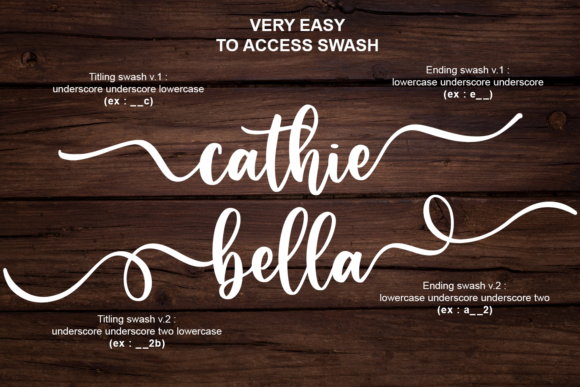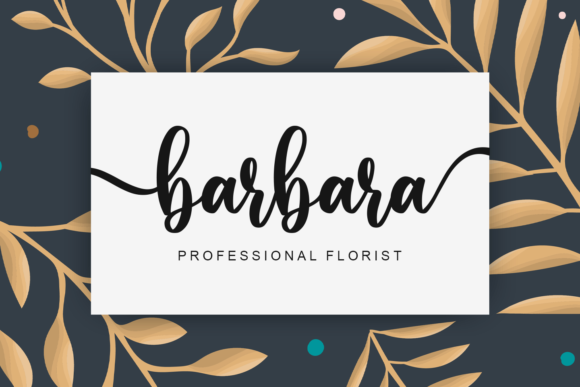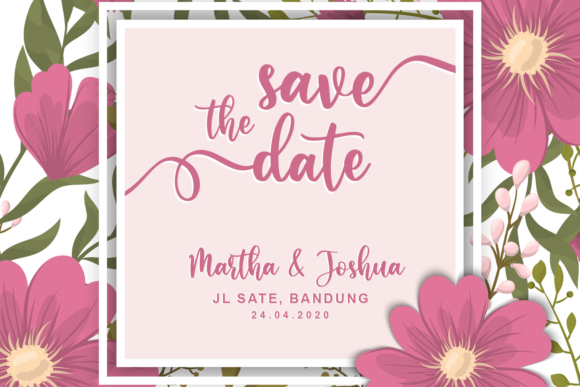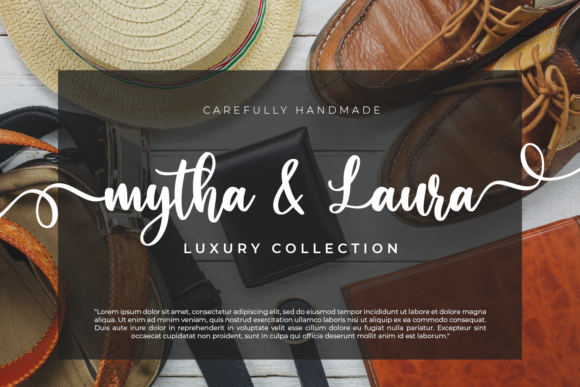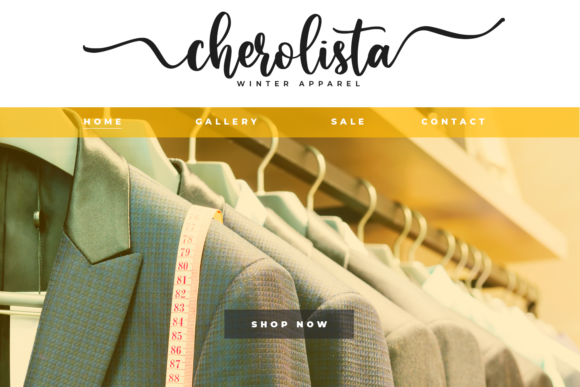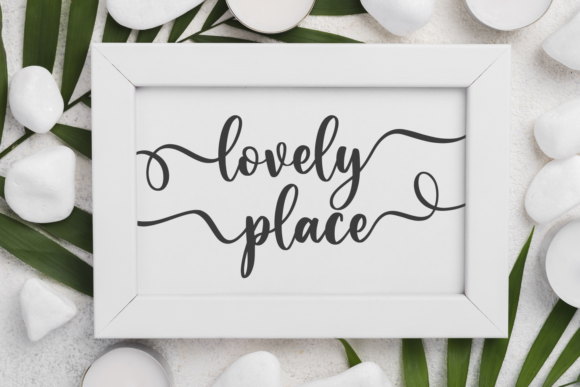
Introducing Caristha Font: The Sweet and Soft Hand-Lettered Font for Your Creative Projects
Are you looking for a font that can add a touch of elegance and sophistication to your designs? Look no further than Caristha Font, a sweet and soft hand-lettered font that’s perfect for creating stunning wedding invitations, beautiful stationary art, eye-catching social media posts, and cute greeting cards.
What Makes Caristha Font Special?
Caristha Font is a unique and authentic font that’s designed to inspire your creativity. Its soft and delicate hand-lettered style gives it a warm and inviting feel that’s sure to capture the attention of your audience. Whether you’re a designer, crafter, or DIY enthusiast, Caristha Font is the perfect addition to your font collection.
Features of Caristha Font
Caristha Font comes with a range of exciting features that make it easy to use and customize. Here are some of the key features:
- PUA Encoding: Caristha Font is PUA encoded, which means you can access all of the amazing glyphs and swashes with ease. This makes it simple to add special characters and flourishes to your designs.
- Alternate Glyphs: The font features a range of alternate glyphs that allow you to add variety and interest to your designs. With just a few clicks, you can switch between different glyphs to create a unique look.
- Ligatures: Caristha Font also includes ligatures, which are special characters that combine two or more letters into a single glyph. This adds a touch of elegance and sophistication to your designs.
Uses for Caristha Font
Caristha Font is a versatile font that can be used for a wide range of creative projects. Here are some ideas to get you started:
- Wedding Invitations: Create stunning wedding invitations that set the tone for a beautiful and elegant wedding. The soft and delicate style of Caristha Font is perfect for wedding stationery.
- Stationary Art: Add a touch of elegance to your stationary art with Caristha Font. Use it to create beautiful journals, planners, and notebooks.
- Social Media Posts: Make your social media posts stand out with Caristha Font. Use it to create eye-catching graphics and quotes that grab the attention of your followers.
- Greeting Cards: Create cute and personalized greeting cards for special occasions like birthdays, holidays, and anniversaries.
Why Choose Caristha Font?
- Unique and Authentic: Caristha Font is a unique and authentic font that’s designed to inspire your creativity. Its soft and delicate style sets it apart from other fonts.
- Easy to Use: The font is PUA encoded, which makes it easy to access all of the amazing glyphs and swashes. It’s also compatible with most design software.
- Versatile: Caristha Font can be used for a wide range of creative projects, from wedding invitations to social media posts.
Caristha Font is a sweet and soft hand-lettered font that’s perfect for designers, crafters, and DIY enthusiasts. With its authentic feel, PUA encoding, alternate glyphs, and ligatures, it’s the perfect addition to your font collection. Use it to create stunning wedding invitations, beautiful stationary art, eye-catching social media posts, and cute greeting cards. Get inspired by Caristha Font and take your designs to the next level!